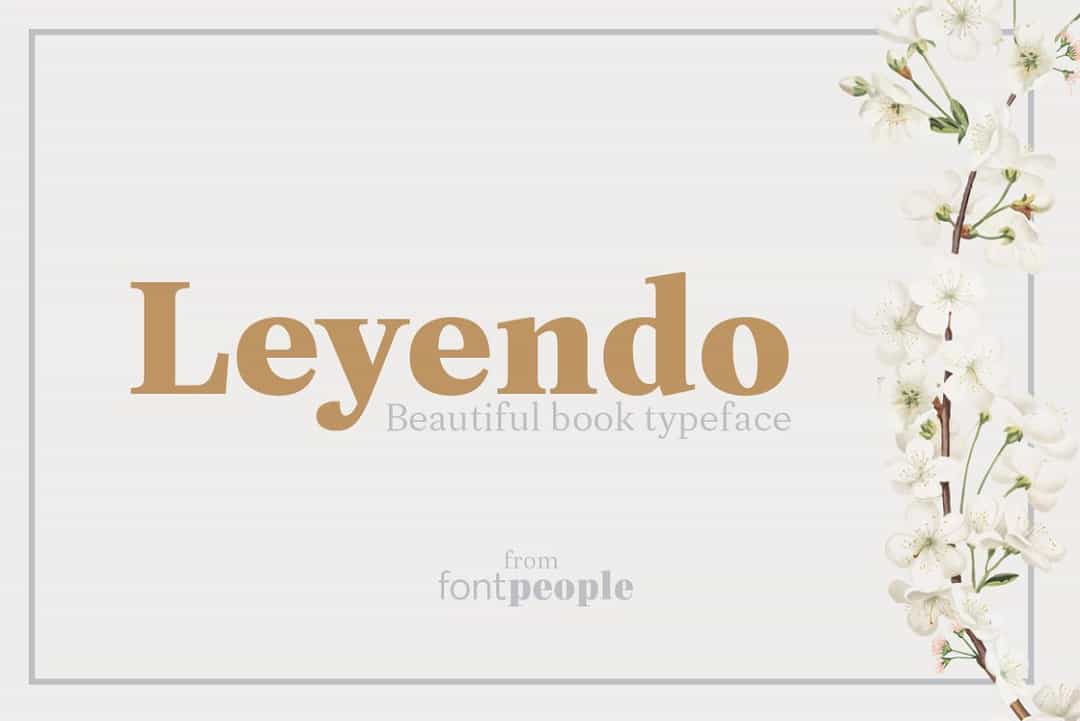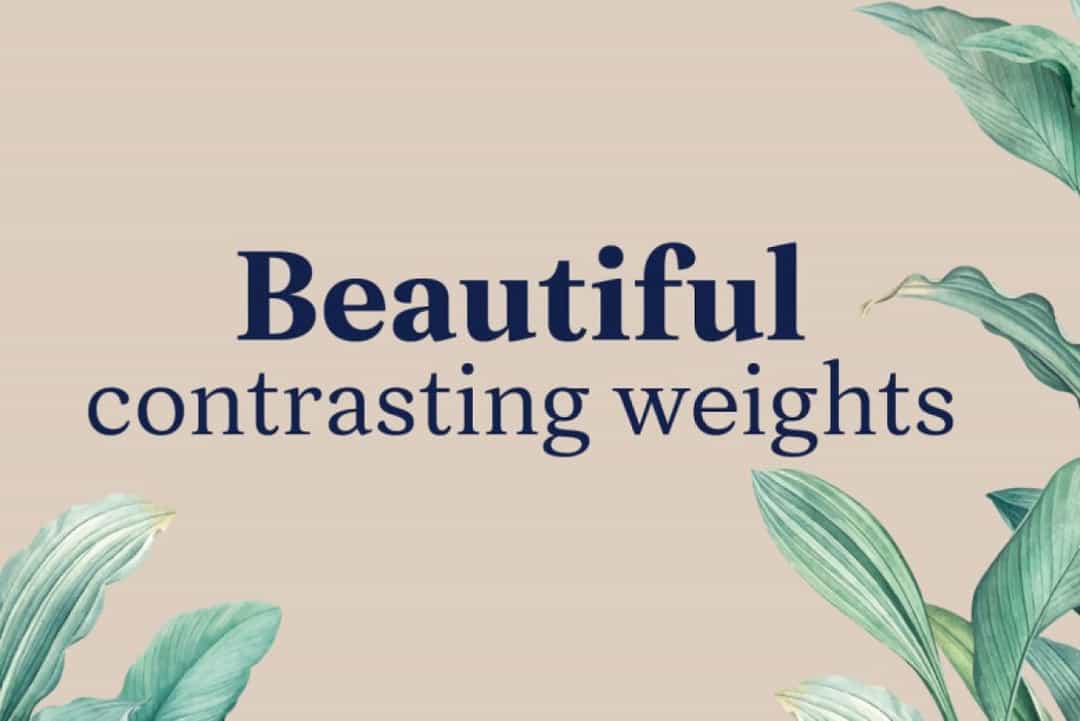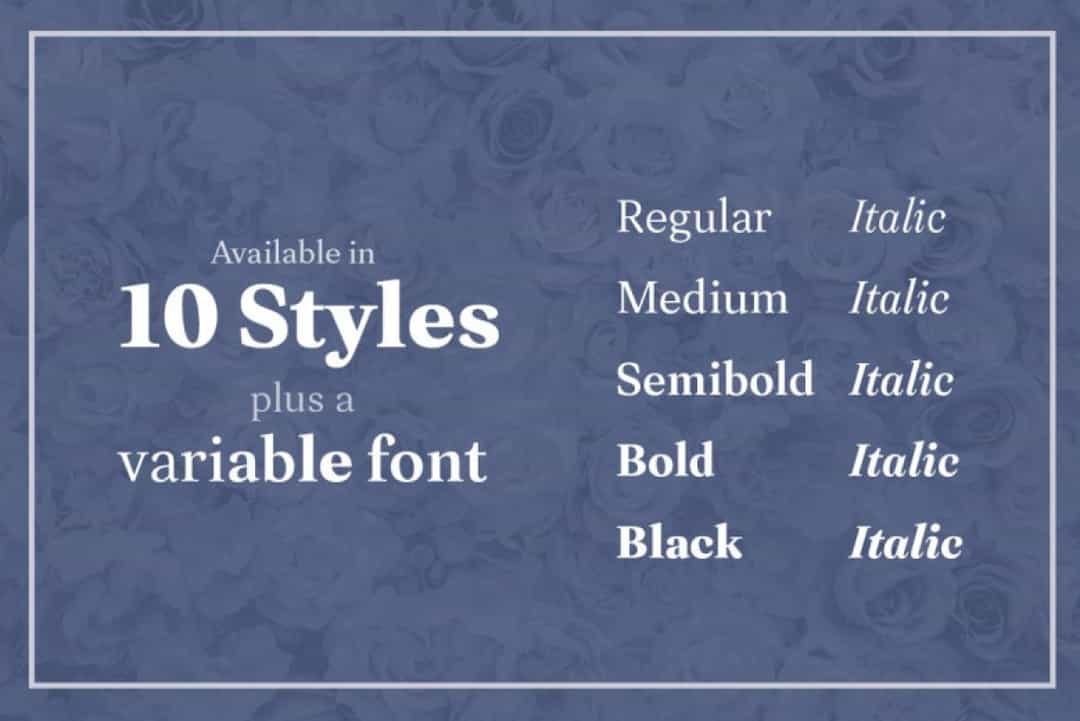
Leyendo Font Family is an elegant modern serif font, with roots in classic typography. Perfect for magazines and books alike, its softness and fluidity please the reader while its high intensity angle provides impressive typographic hierarchy in complex layout designs.